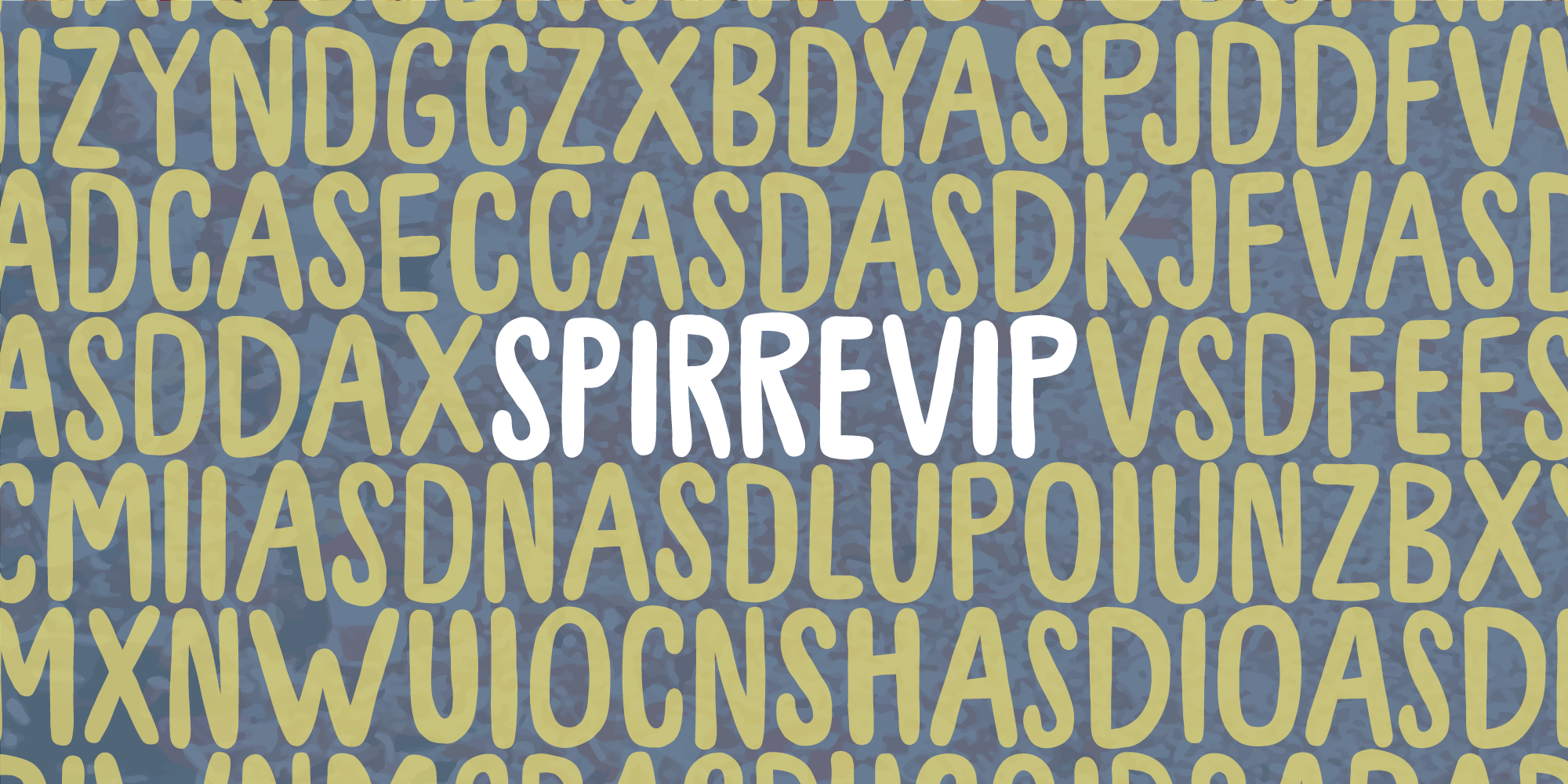
Looking for a unique and elegant typeface that features smooth curves and a dynamic flow? Spirrevip Font Free Download is perfect for branding, invitations, editorial design, and creative projects that require a touch of sophistication and movement. Its spiral-inspired shapes give your typography a fluid and captivating look.
Whether you’re designing logos, posters, or digital content, Spirrevip Font Free Download brings a fresh and graceful edge to your typography.